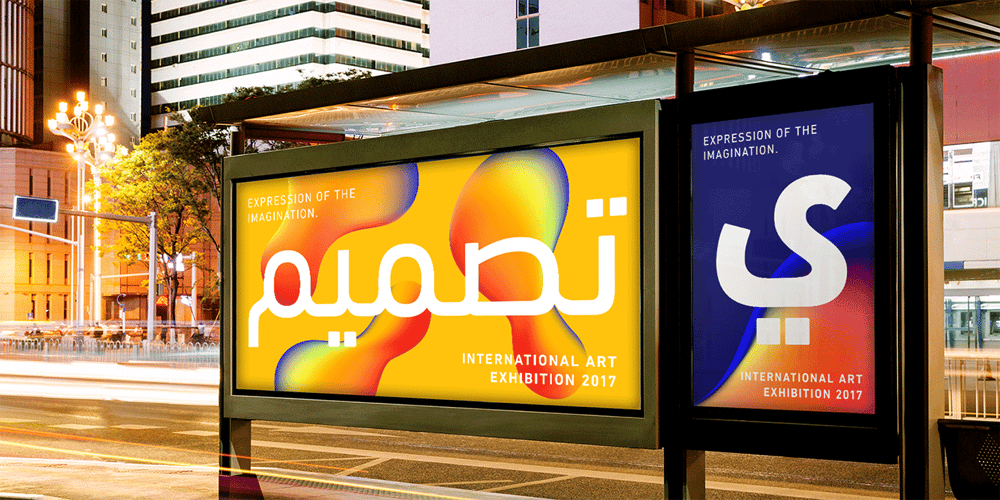
DIN Next Arabic Font Family was designed by Akira Kobayashi, Nadine Chahine, Linotype Design Studio and published by Monotype. DIN Next Arabic contains 7 styles and family package options. DIN Next is a typeface family inspired by the classic industrial German engineering designs, DIN 1451 Engschrift and Mittelschrift. Akira Kobayashi began by revising these two faces-who names just mean “”condensed”” and “”regular”” before expanding them into a new family with seven weights (Light to Black). Each weight ships in three varieties: Regular, Italic, and Condensed, bringing the total number of fonts in the DIN Next family to 21. DIN Next is part of Linotype’s Platinum Collection. Linotype has been supplying its customers with the two DIN 1451 fonts since 1980. Recently, they have become more popular than ever, with designers regularly asking for additional weights. The abbreviation “”DIN”” stands for “”Deutsches Institut für Normung e.V.””, which is the German Institute for Industrial Standardization. In 1936 the German Standard Committee settled upon DIN 1451 as the standard font for the areas of technology, traffic, administration and business. The design was to be used on German street signs and house numbers. The committee wanted a sans serif, thinking it would be more legible, straightforward, and easy to reproduce. They did not intend for the design to be used for advertisements and other artistically oriented purposes. Nevertheless, because DIN 1451 was seen all over Germany on signs for town names and traffic directions, it became familiar enough to make its way onto the palettes of graphic designers and advertising art directors. The digital version of DIN 1451 would go on to be adopted and used by designers in other countries as well, solidifying its worldwide design reputation. There are many subtle differences in DIN Next’s letters when compared with DIN 1451 original. These were added by Kobayashi to make the new family even more versatile in 21st-century media. For instance, although DIN 1451’s corners are all pointed angles, DIN Next has rounded them all slightly. Even this softening is a nod to part of DIN 1451’s past, however. Many of the signs that use DIN 1451 are cut with routers, which cannot make perfect corners; their rounded heads cut rounded corners best. Linotype’s DIN 1451 Engschrift and Mittelschrift are certified by the German DIN Institute for use on official signage projects. Since DIN Next is a new design, these applications within Germany are not possible with it. However, DIN Next may be used for any other project, and it may be used for industrial signage in any other country! DIN Next has been tailored especially for graphic designers, but its industrial heritage makes it surprisingly functional in just about any application. The DIN Next family has been extended with seven Arabic weights and five Devanagari weights. The display of the Devanagari fonts on the website does not show all features of the font and therefore not all language features may be displayed correctly.